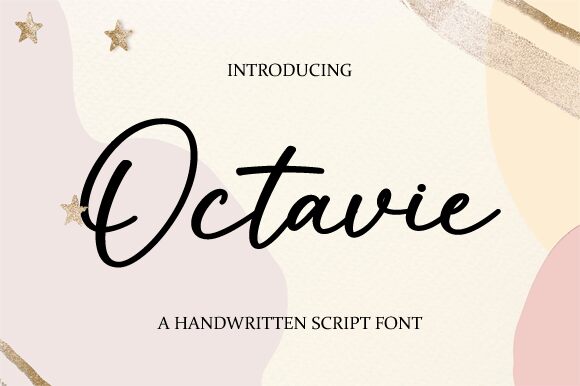
Octavie
Octavie, crafted by Graphix Line Studio, embodies the elegance of handwritten style with a delightful flourish. The fluidity of its strokes evokes a sense of personal touch and authenticity, making it perfect for creating a warm and inviting atmosphere. This font's natural, cursive flow is both sophisticated and approachable, capturing the essence of hand-penned charm.
Ideal for wedding invitations, greeting cards, and personal branding materials, Octavie brings a unique flair to any project that seeks to convey warmth and individuality. Its artistic design ensures that each character stands out with personality and grace. Embrace Octavie's distinctive style to add an elegant yet personal touch to your creative endeavors.